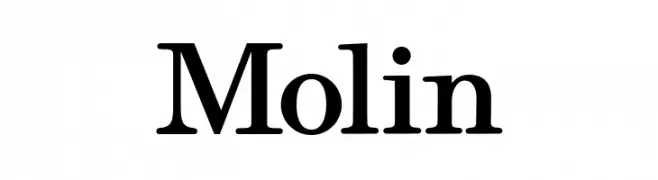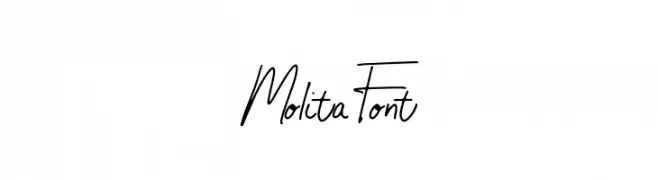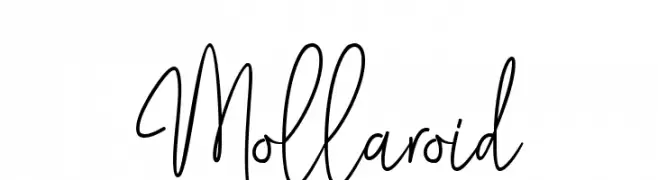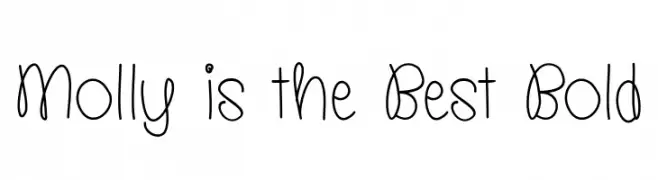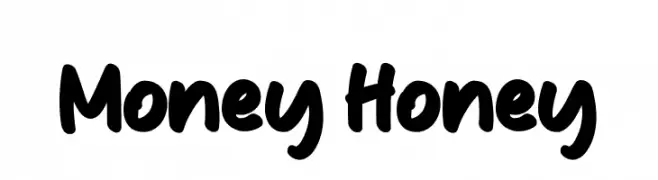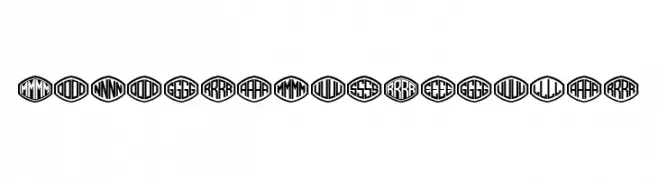
A classic serif font with bold strokes and high contrast, perfect for elegant designs.
A fluid and elegant script font with a handwritten feel.
A fluid and elegant handwritten font with a dynamic style.
A playful handwritten font with smooth, flowing lines and a casual style.
A bold, expressive handwritten font with dynamic strokes and a lively appearance.
A bold, playful script font with a handwritten style.
A bold, geometric monogram font with characters enclosed in hexagons.
A decorative monogram font with bold, uppercase letters enclosed in ovals.
A bold, monospaced font with a jagged, distressed uppercase style and geometric lowercase design.